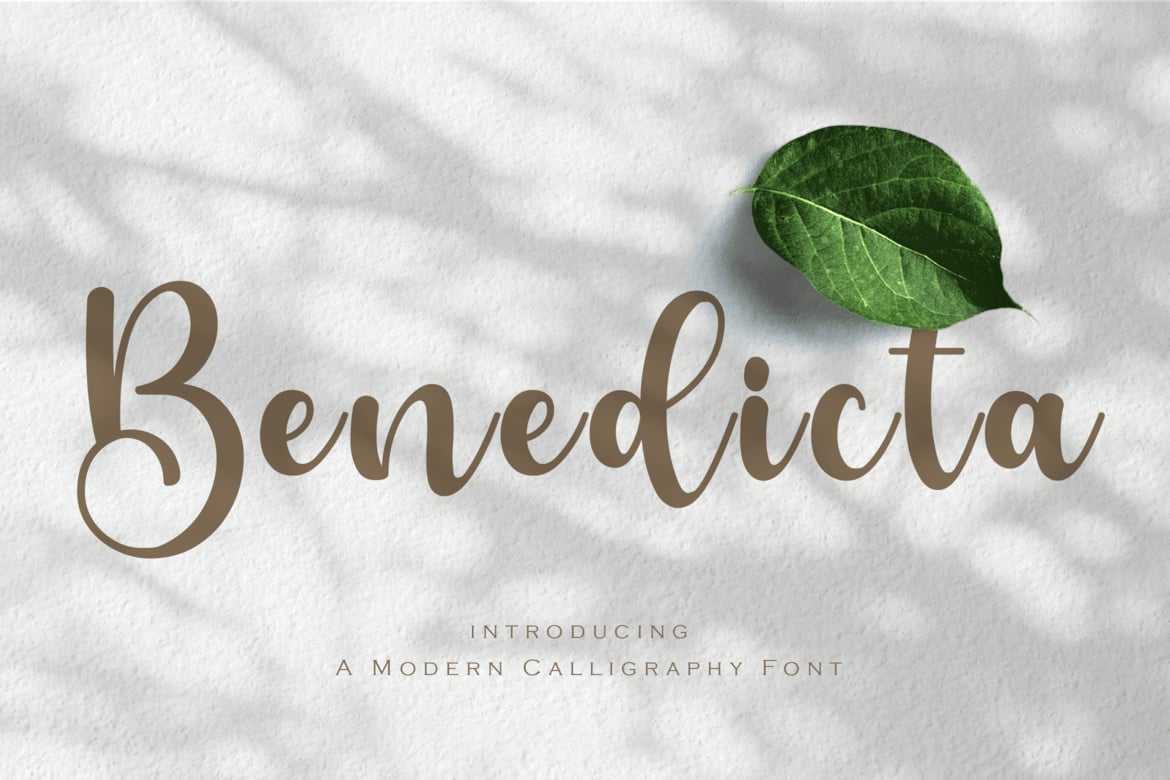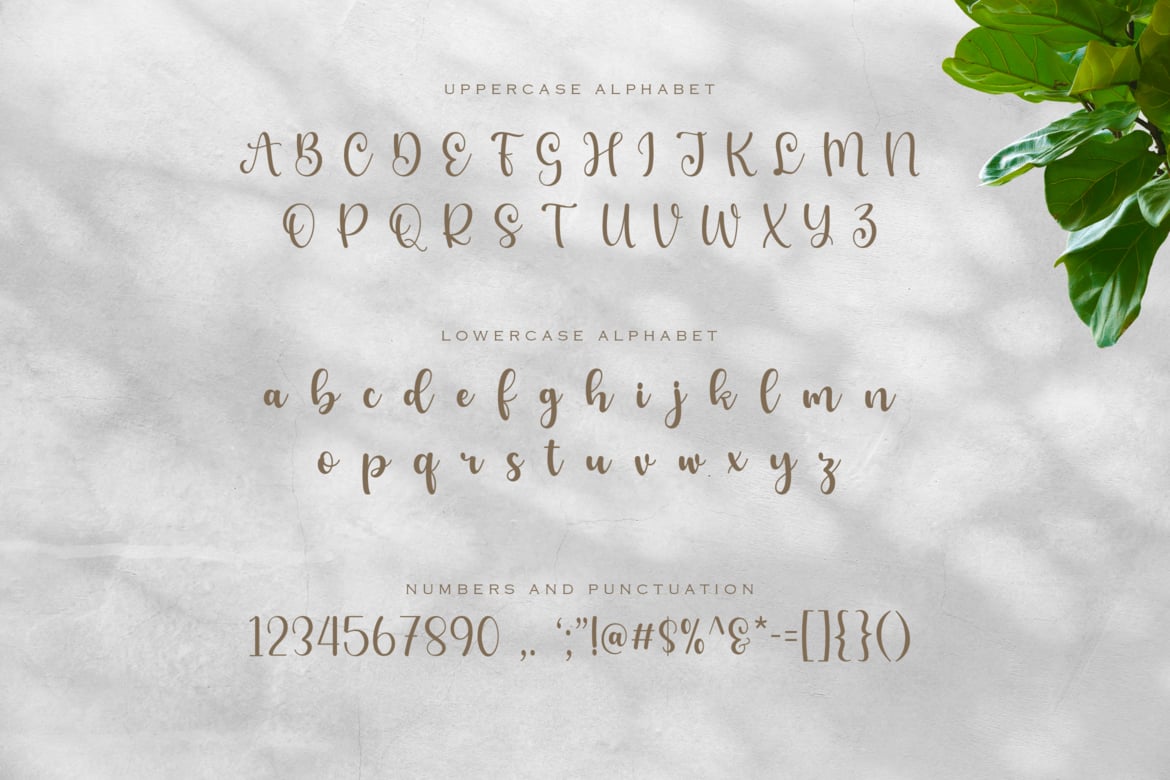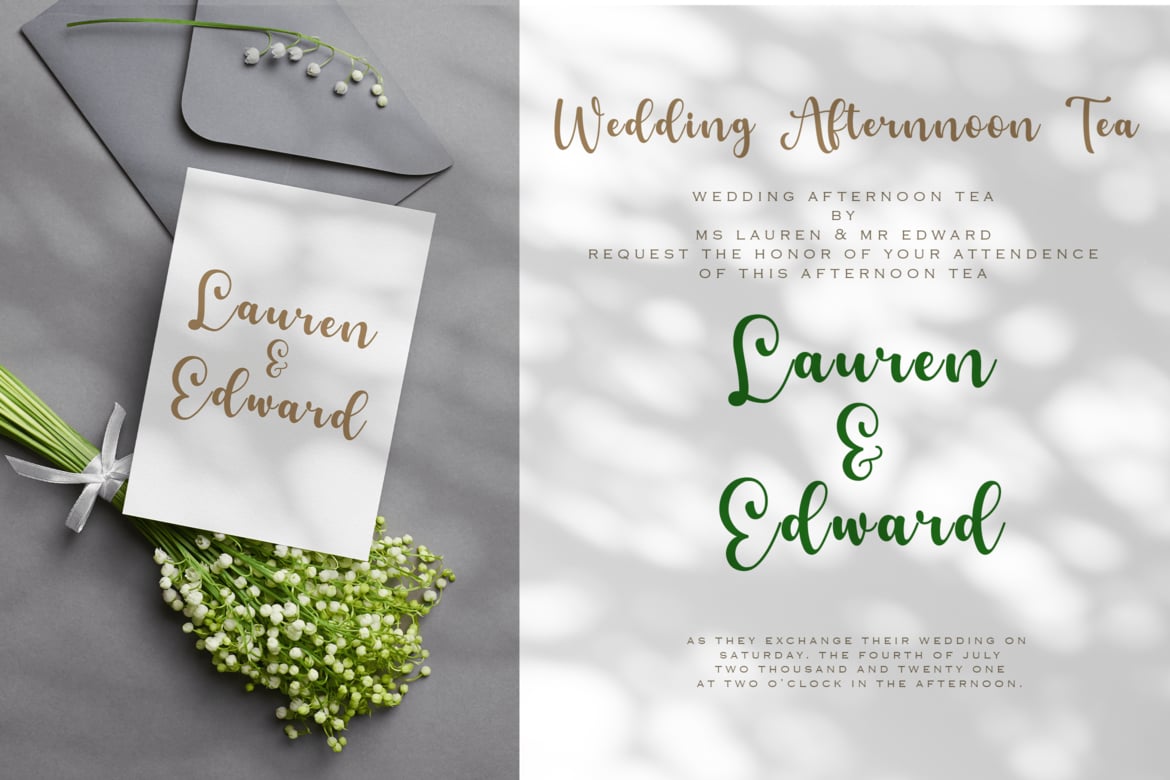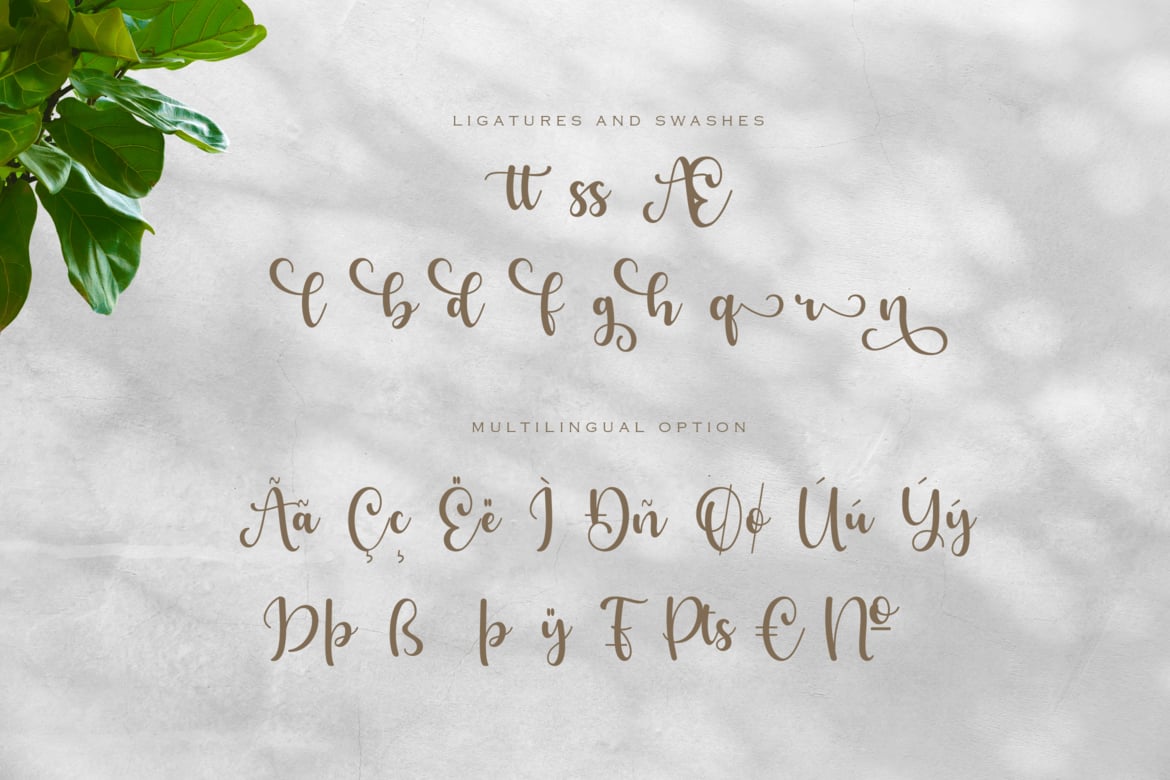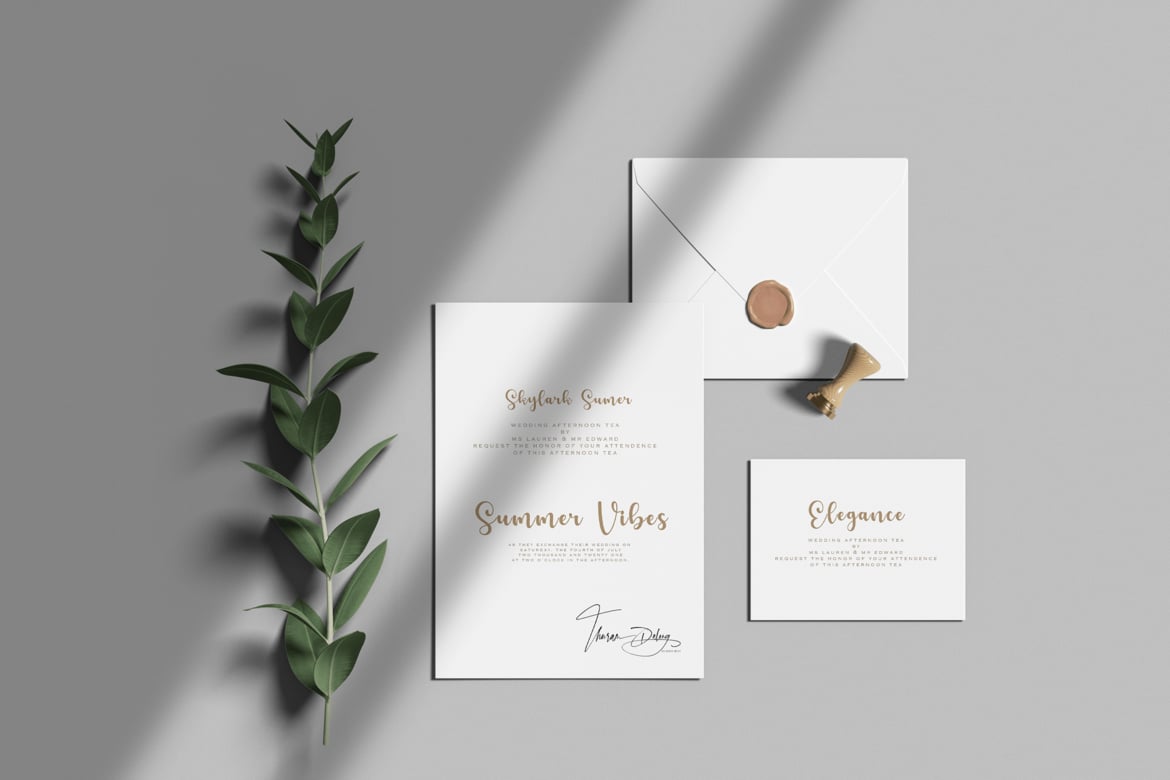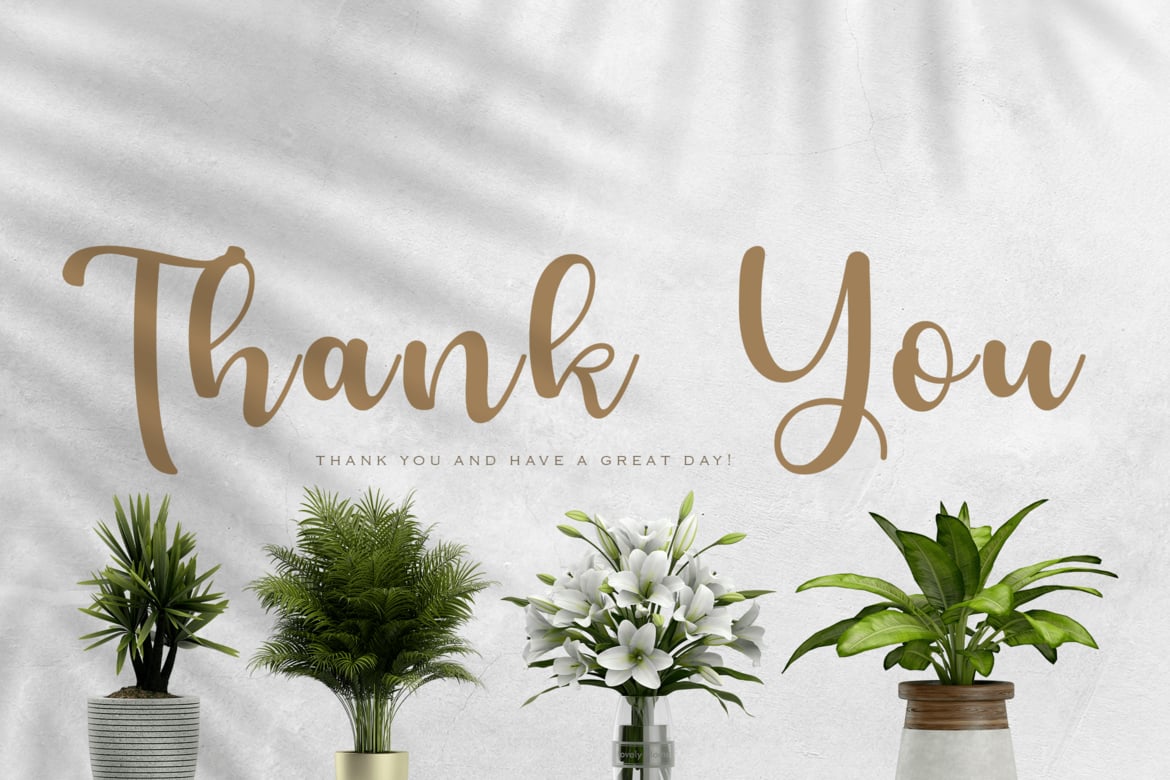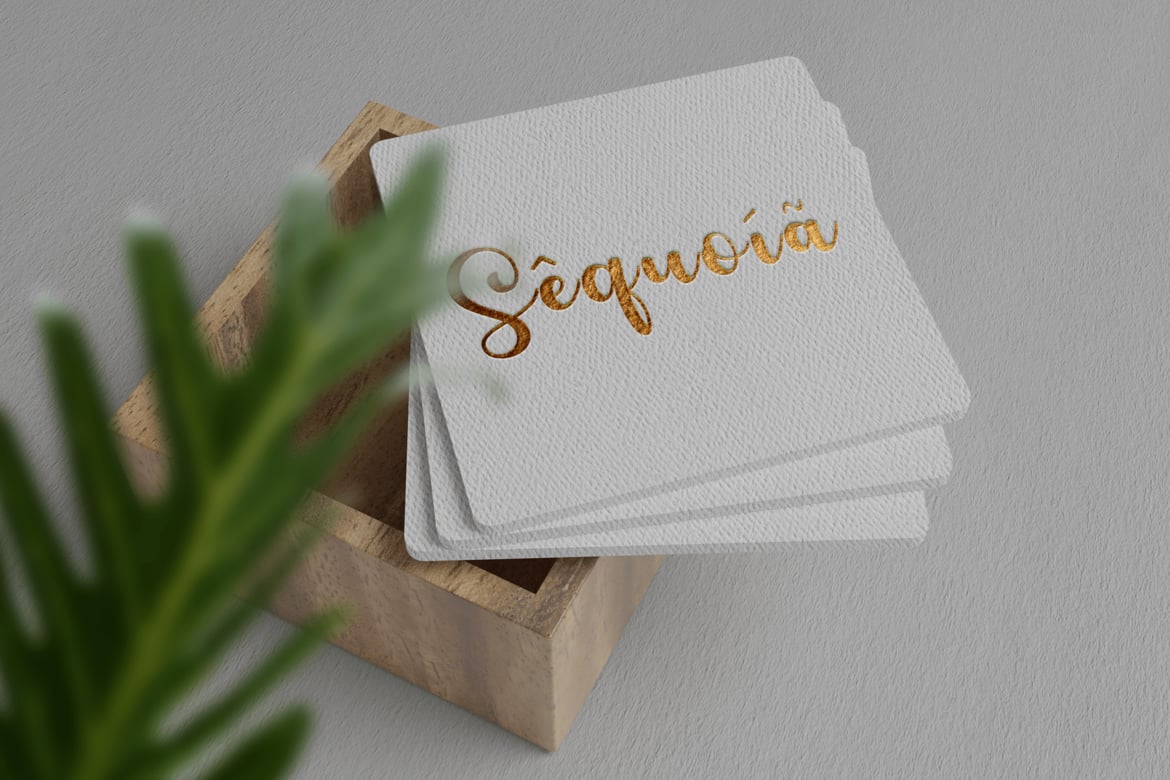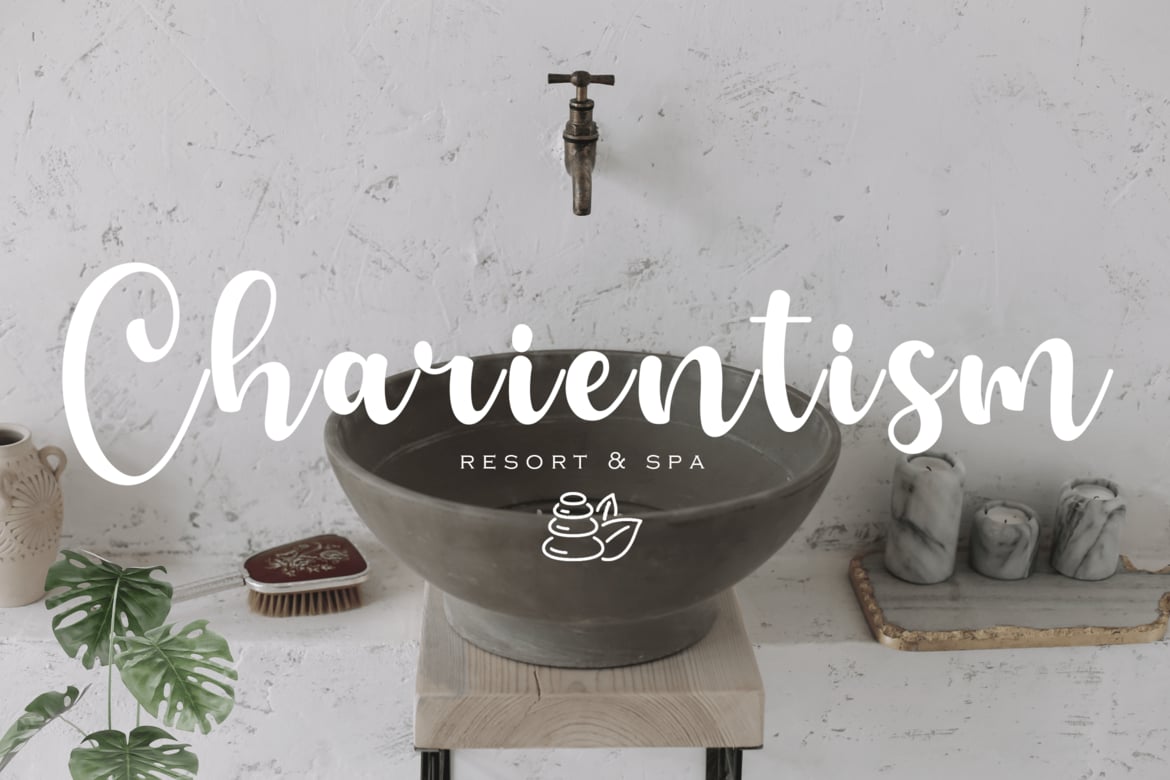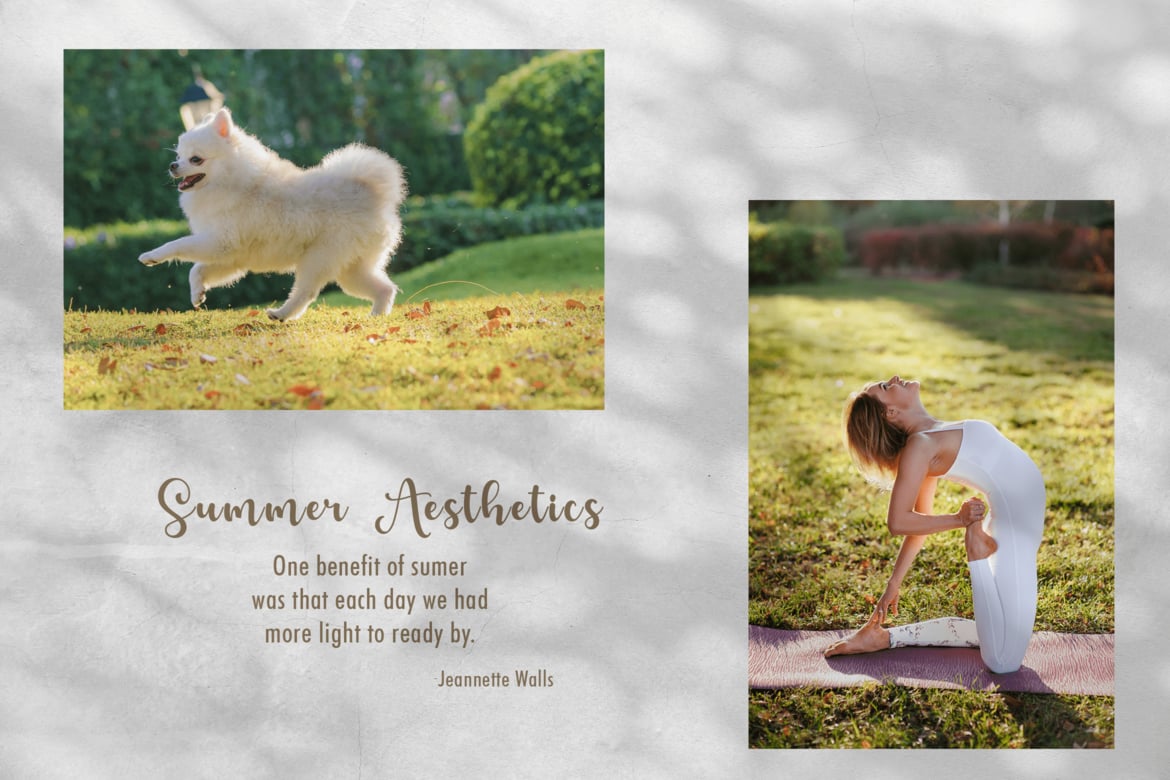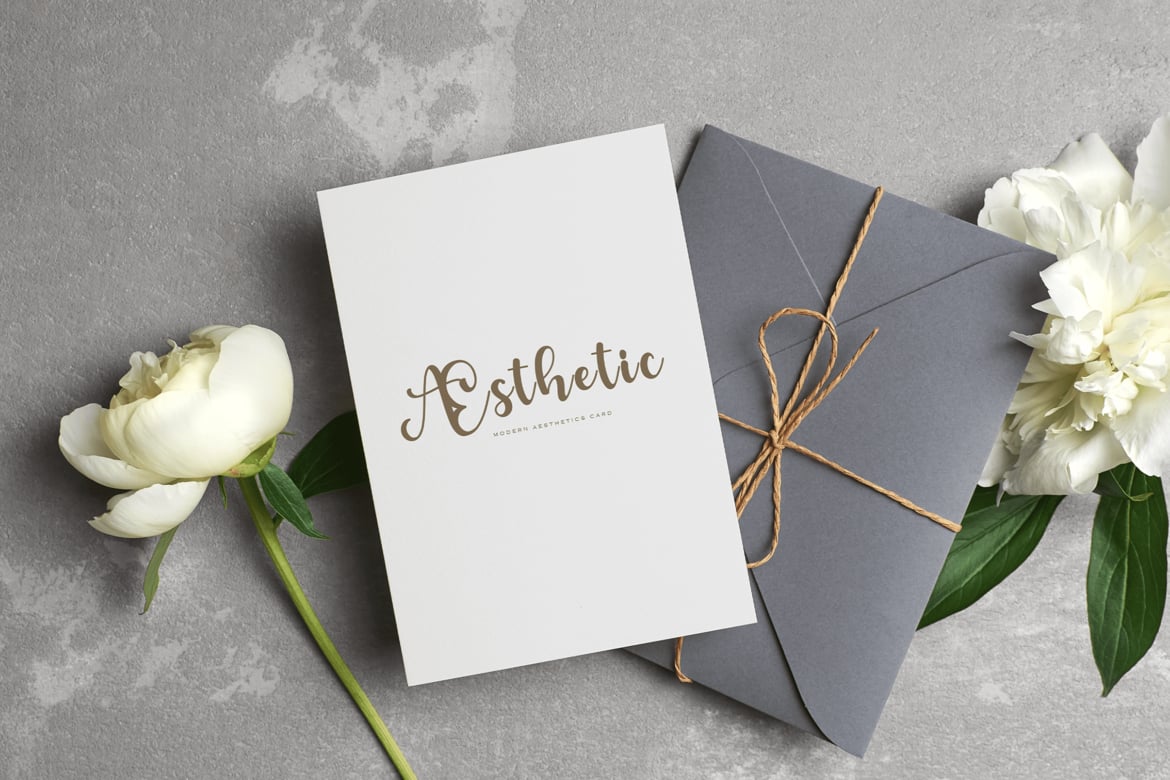
Calligraphy Font
Whether you wish to add some elegance to your brand or create beautiful wedding invitations, the font you choose makes all the difference.
Introducing Benedicta– A Modern Calligraphy Font.
It’s stylish, eye-catching, and combines perfectly with other fonts. Thanks to this, it leaves a very strong impression and makes your brand memorable.
- Multilingual & Ligature Support
- Full sets of Punctuation and Numerals